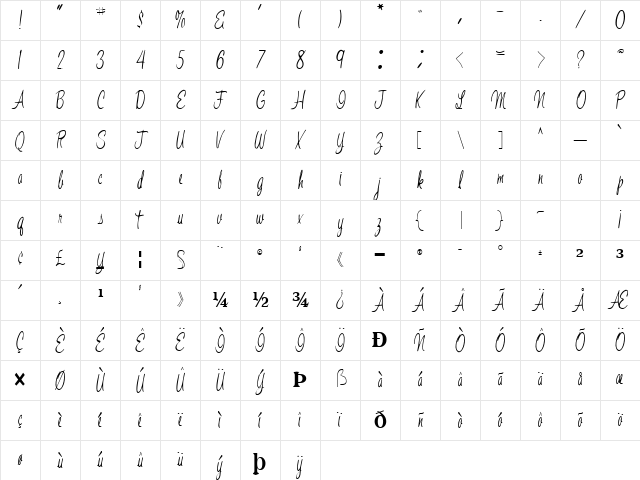
HiResFont52 Regular
Complete HiResFont52 Regular glyph index. Displaying only characters natively supported by HiResFont52 Regular font.
Design Context for HiResFont52
HiResFont52 is a composed and adaptable typeface that performs quietly and consistently across a wide range of design contexts.